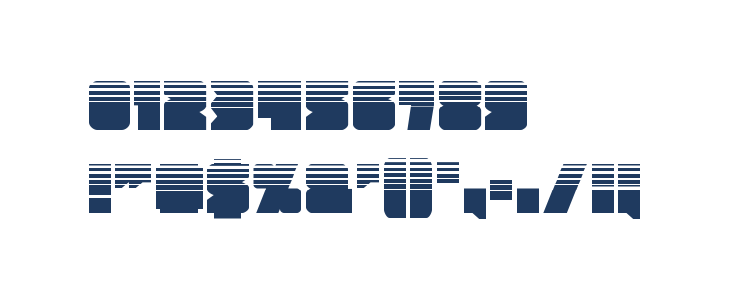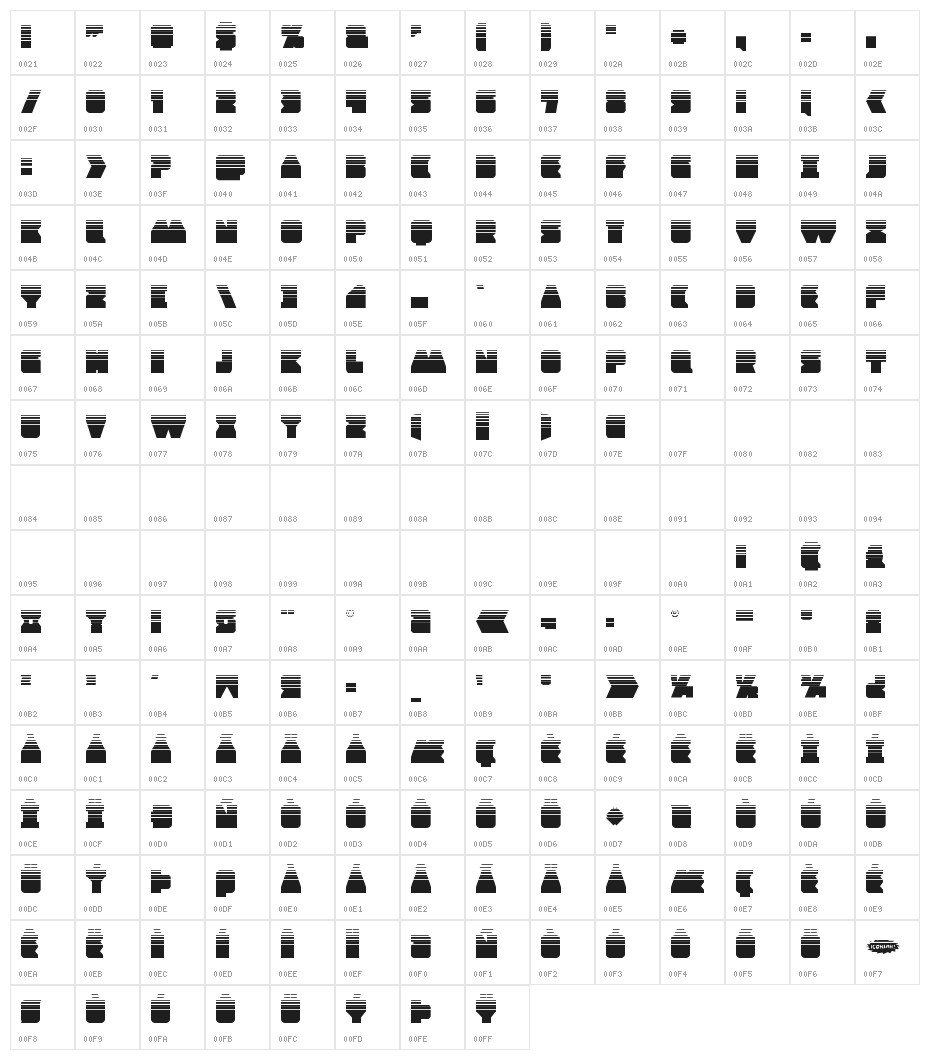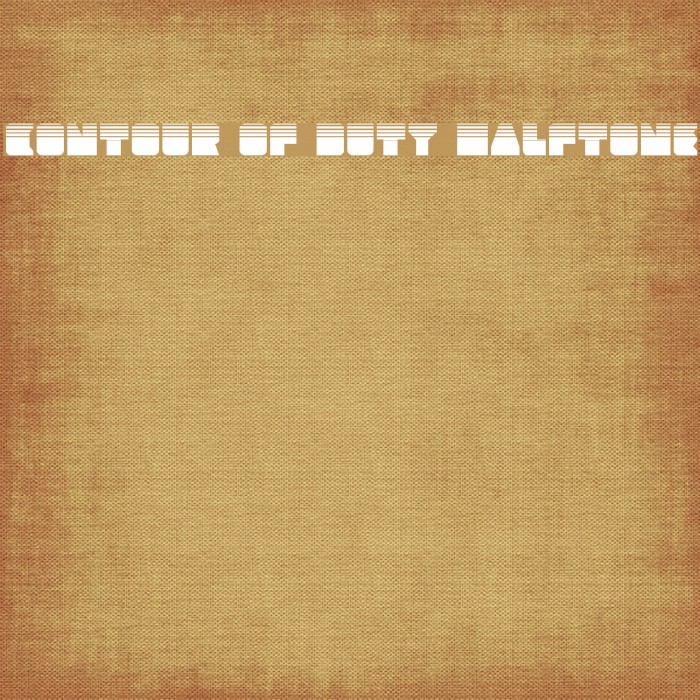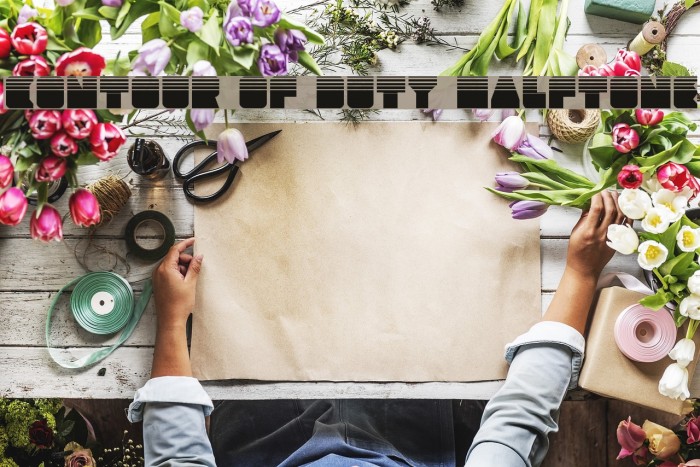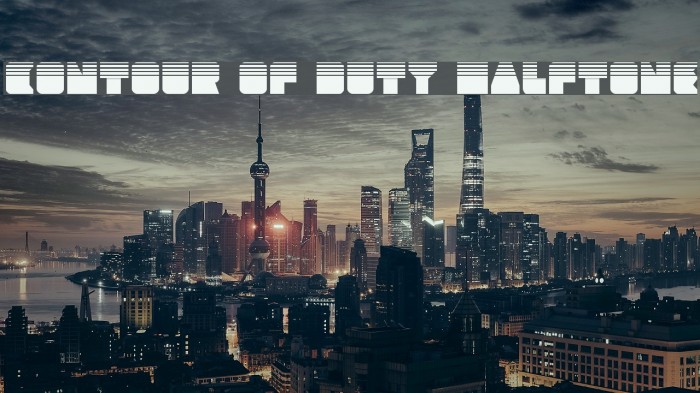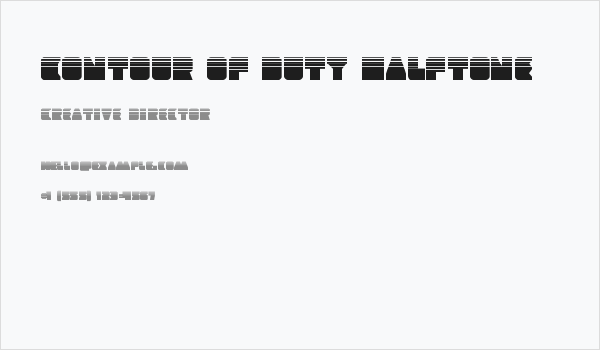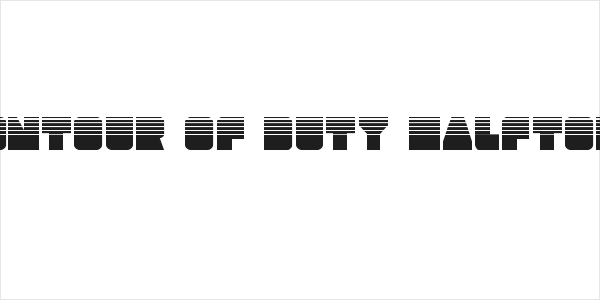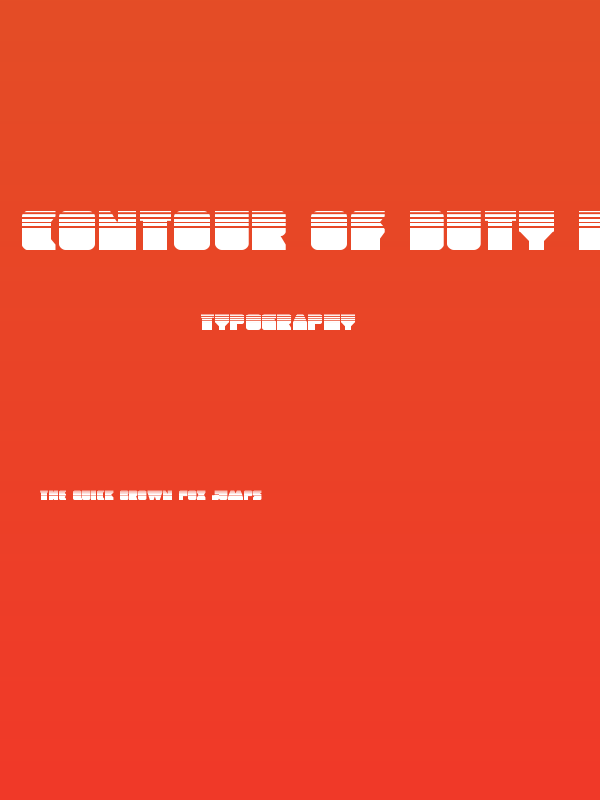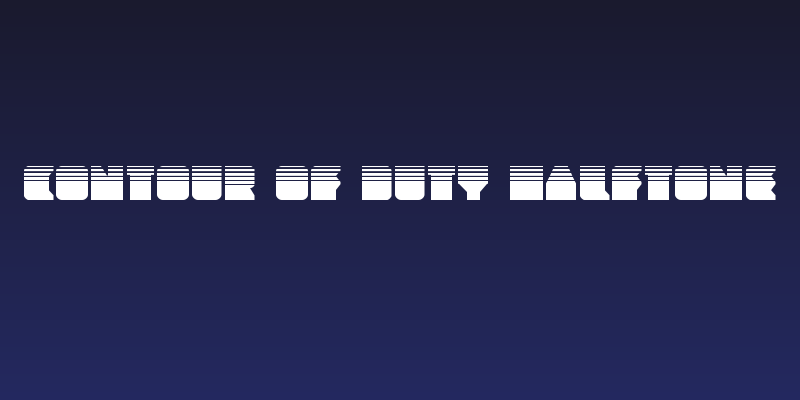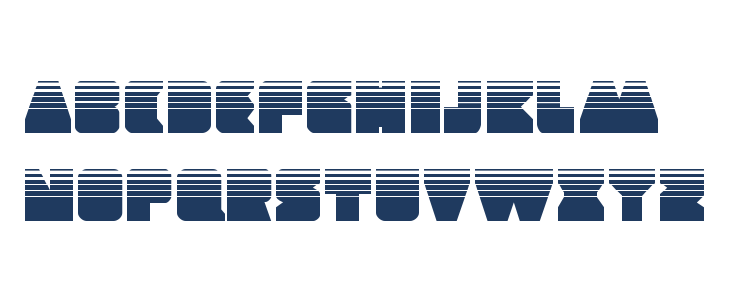
Contour of Duty Halftone Font
Contour of Duty Halftone Description
This font features a bold, geometric design with a halftone effect that gives it a unique, layered appearance. The characters are constructed with horizontal lines that create a sense of depth and movement. The uppercase and lowercase letters maintain a consistent style, emphasizing strong, angular shapes. Numbers and special characters are equally bold, ensuring uniformity across all glyphs. The font's distinct style makes it ideal for eye-catching designs, where a modern and edgy look is desired. Its structured form and high contrast between the thick lines and negative space make it stand out in any application.
| Proposed Projects | Ideal for posters, album covers, branding, and any project requiring a modern, striking aesthetic. |